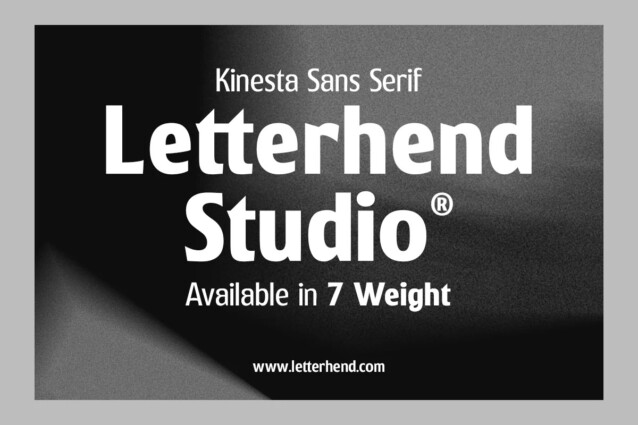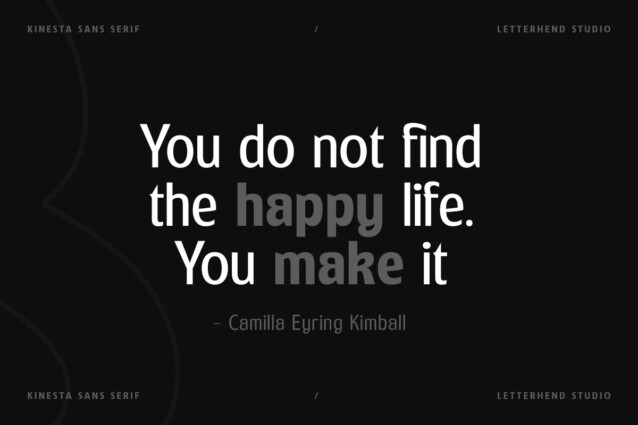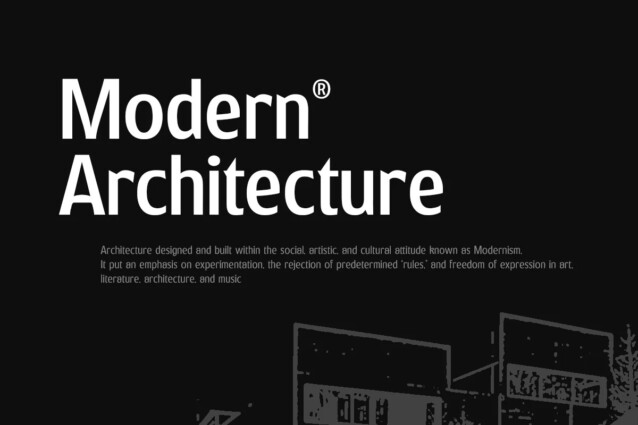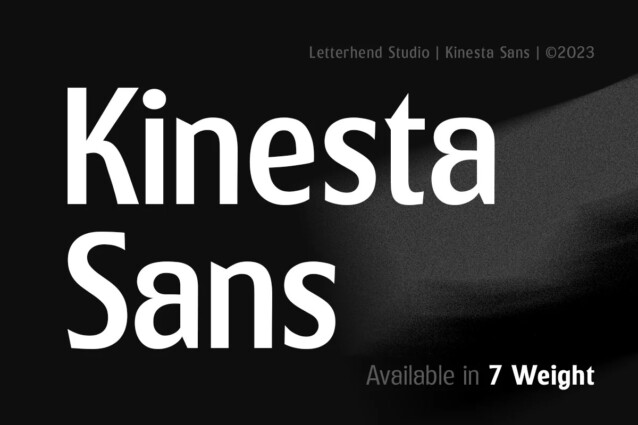
Kinesta Font
Kinesta Font is a geometric sans serif font family. Made from font designer named Letterhend Studio. You can play around to match your project, whether for a standout headline, or for a tagline, you name it. Perfect to be applied to the other various formal forms such as invitations, labels, logos, magazines, books, greeting / wedding cards, packaging, fashion, make up, stationery, novels, labels or any type of advertising purpose.